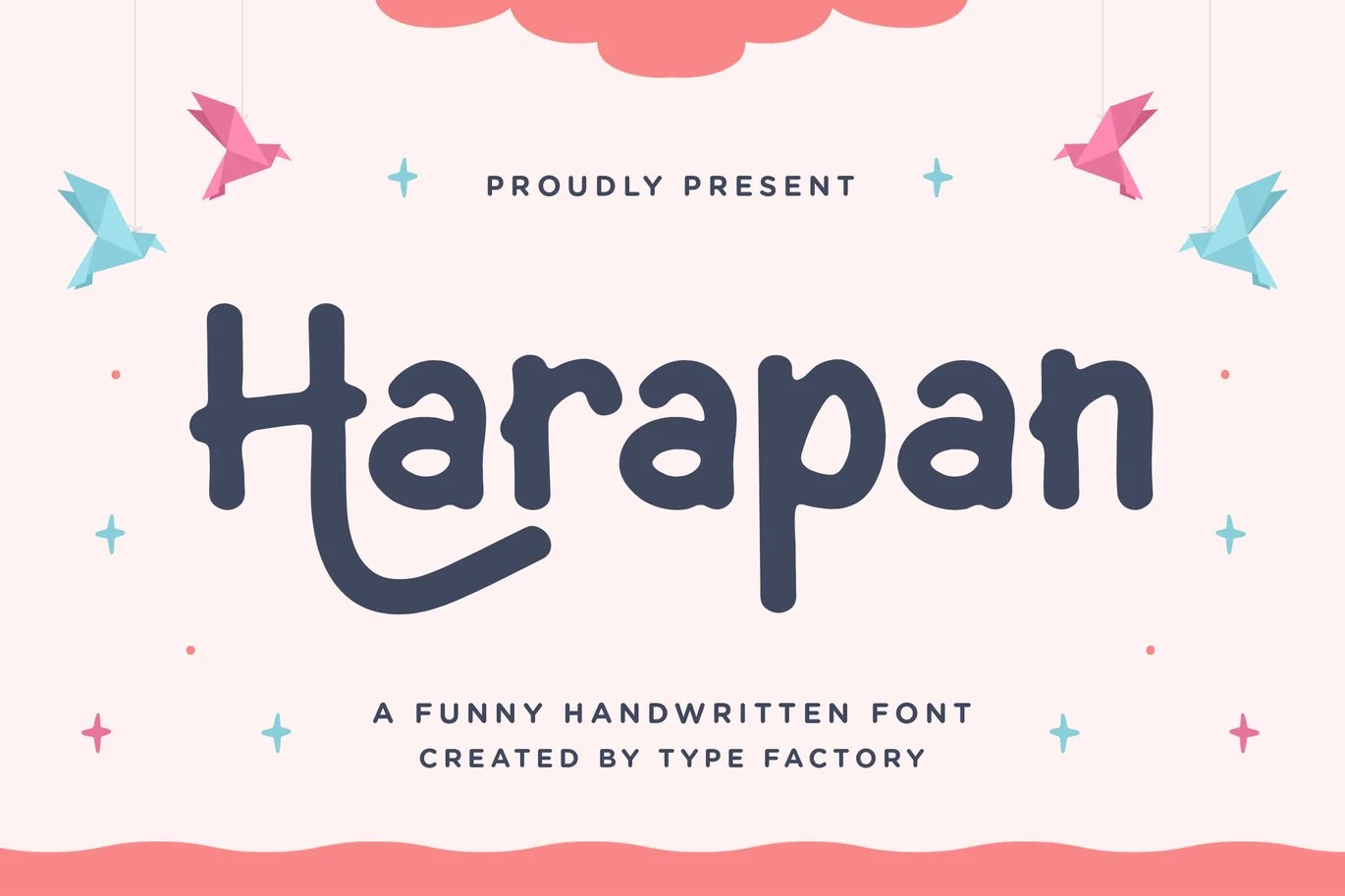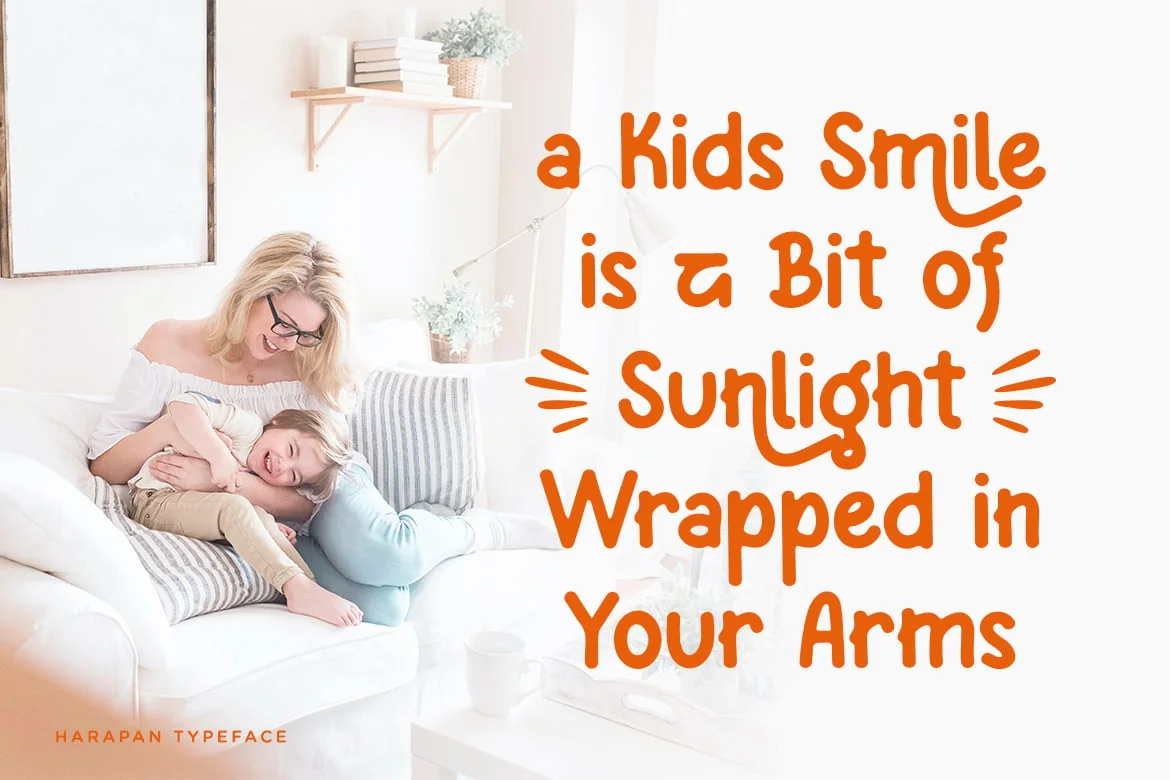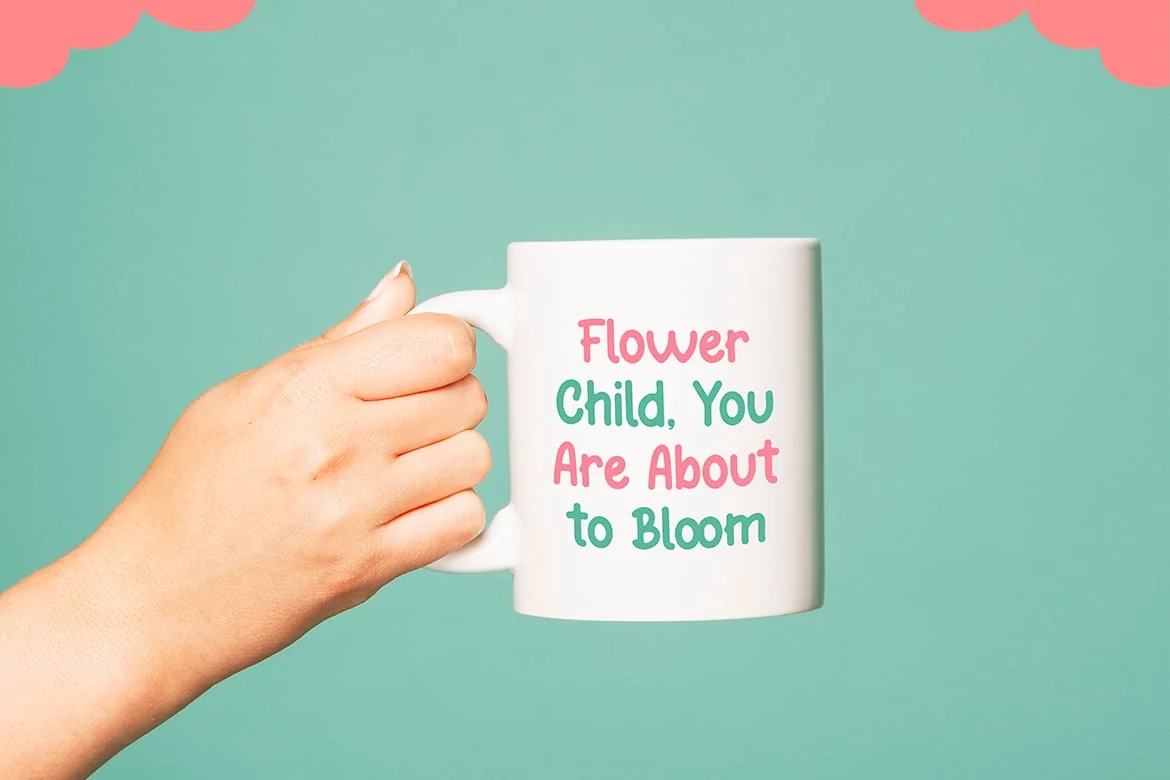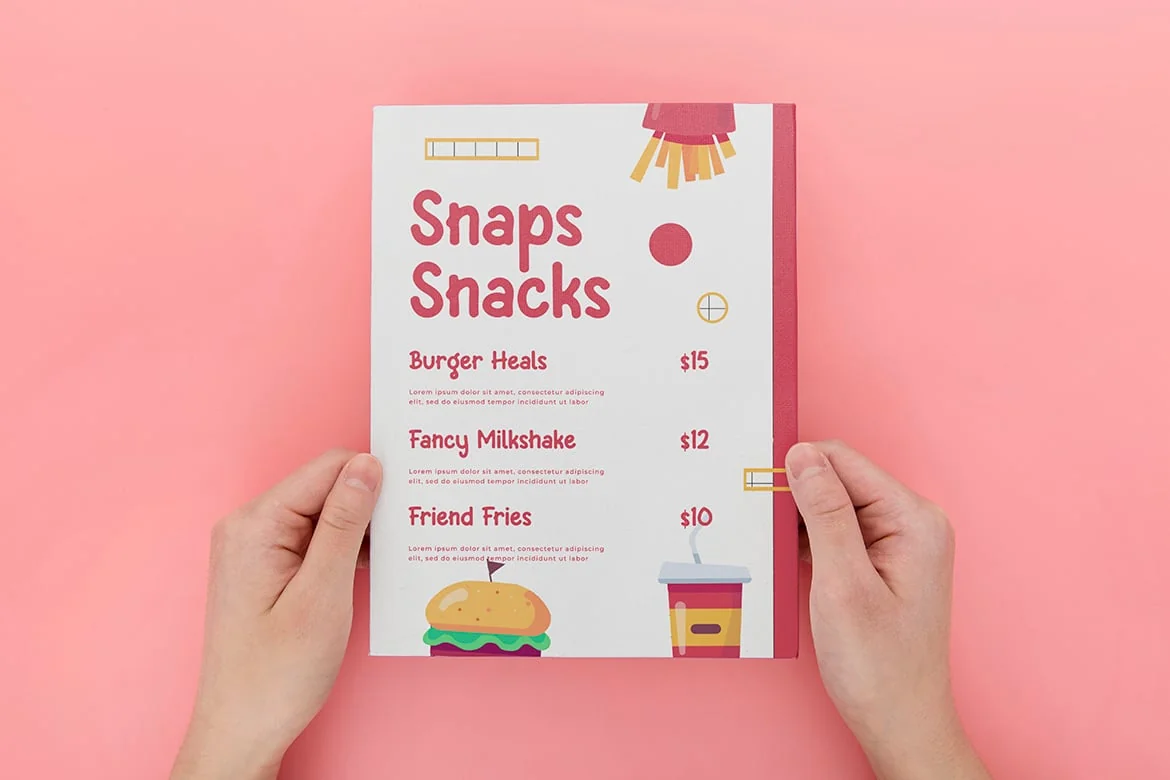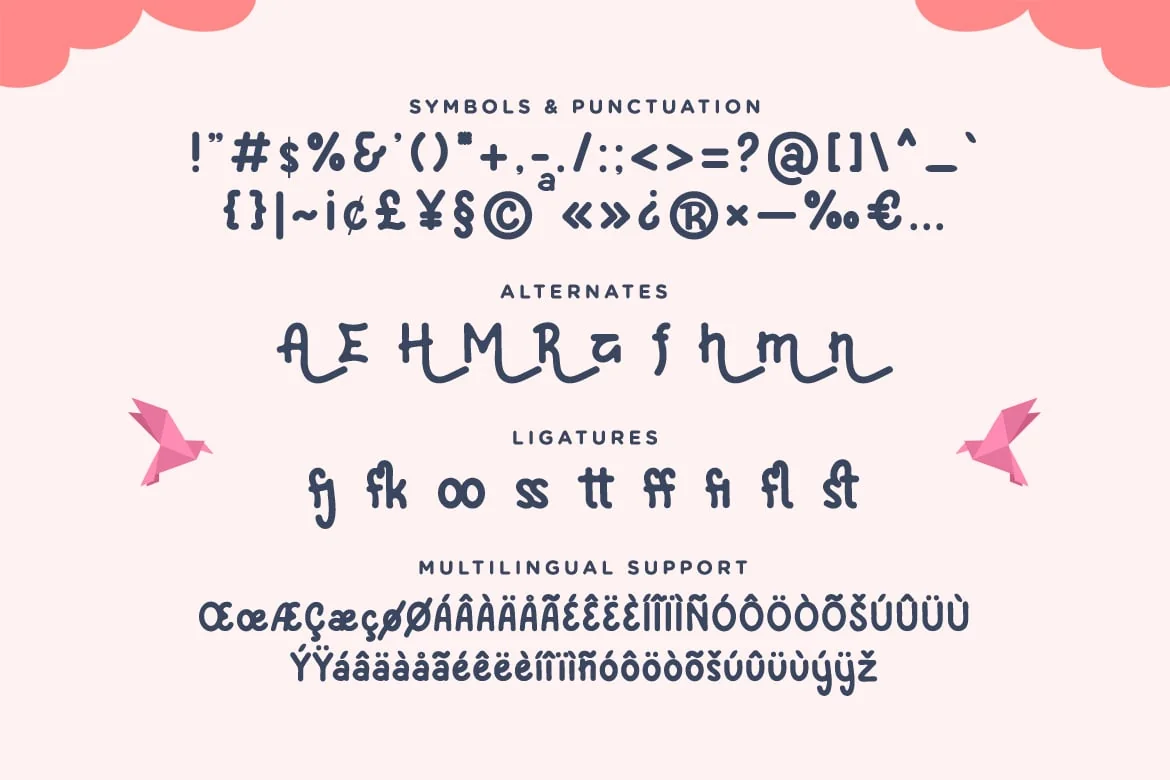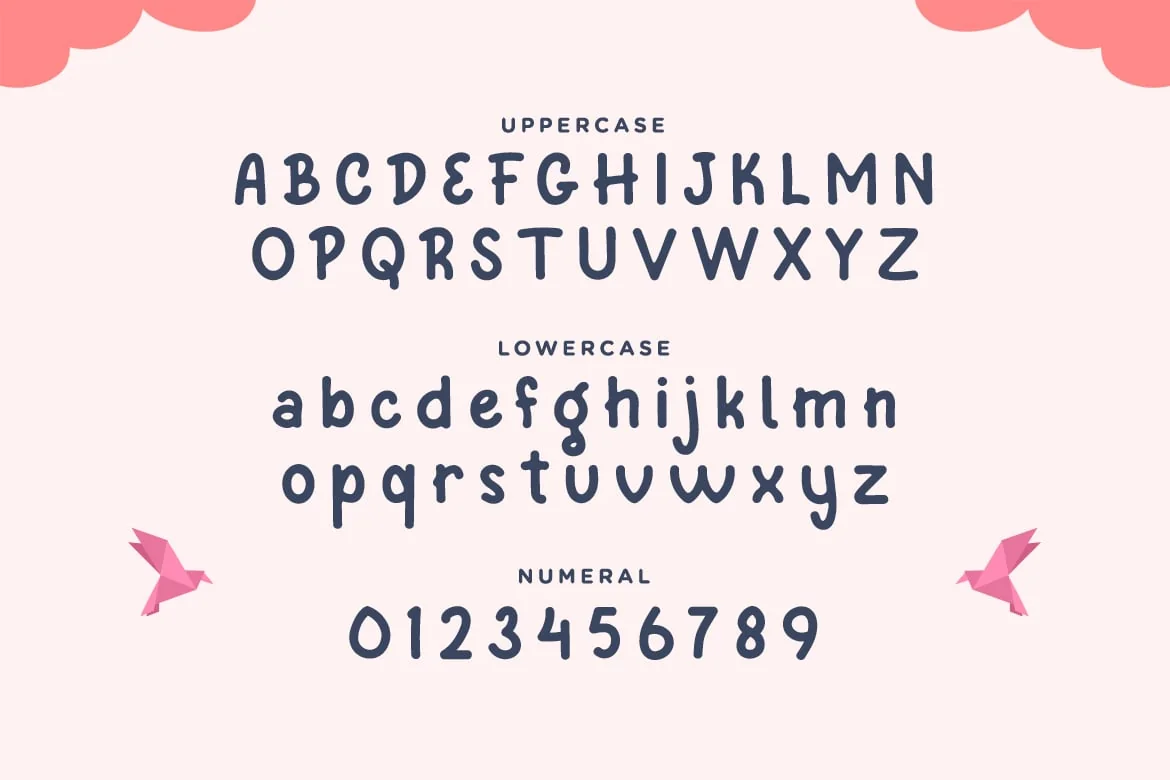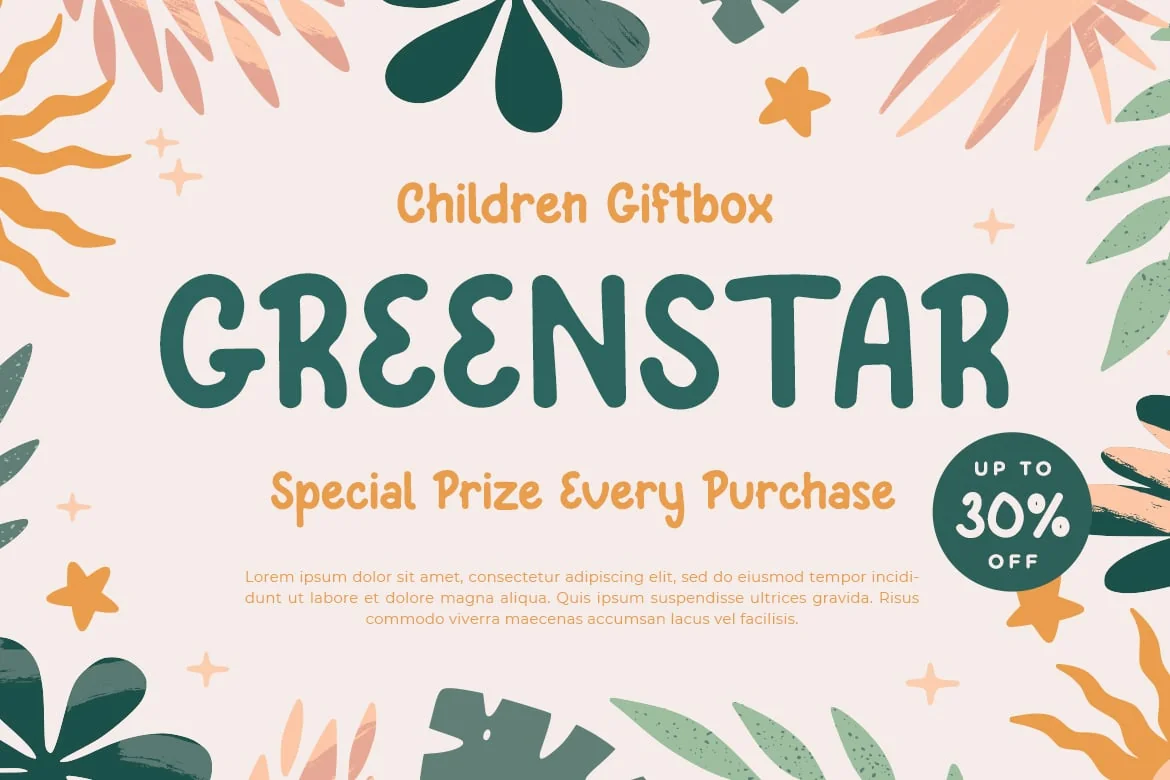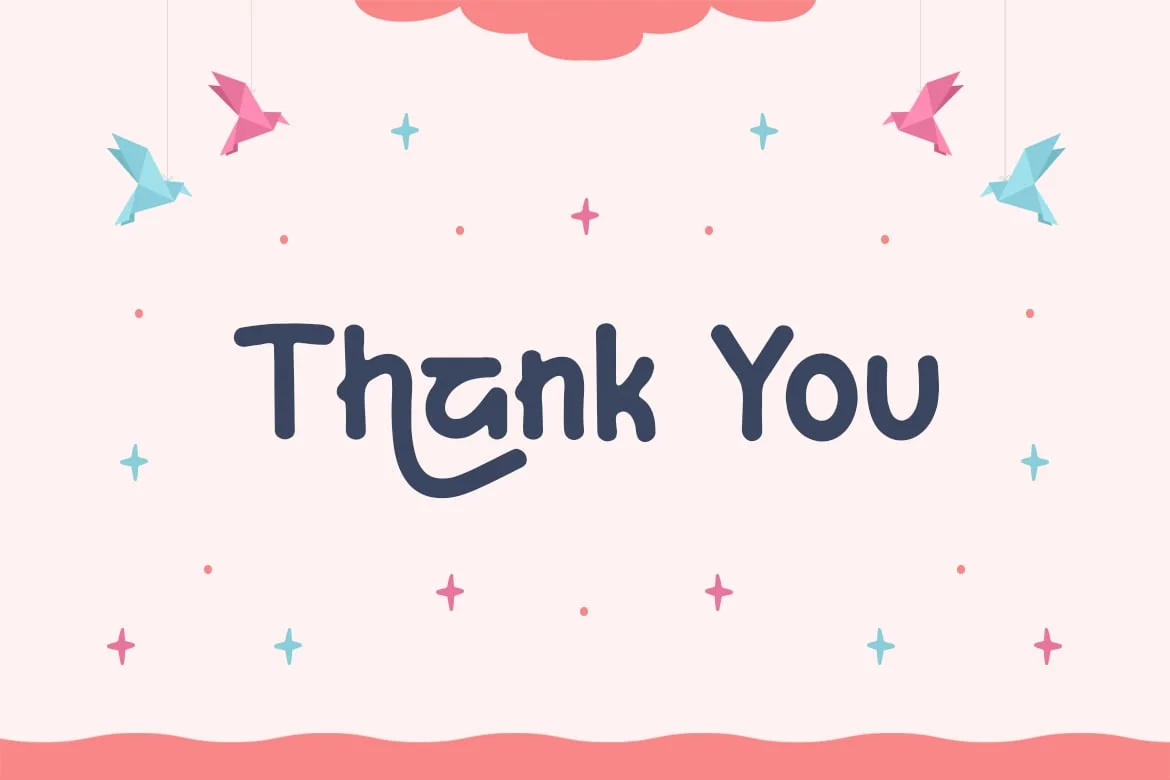
Harapan – A Funny Handwritten Font
Harapan is a funny and modern handwritten font, carefully handcrafted to become a true favorite.
This font will look outstanding in kids-themed designs like coloring books, birthday invitations, playgrounds, kids show events, and many more!
- Symbols & Punctuation